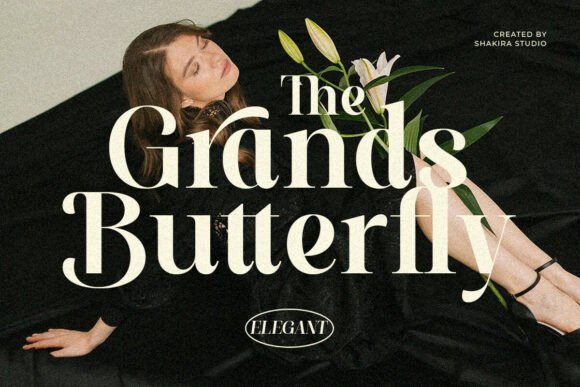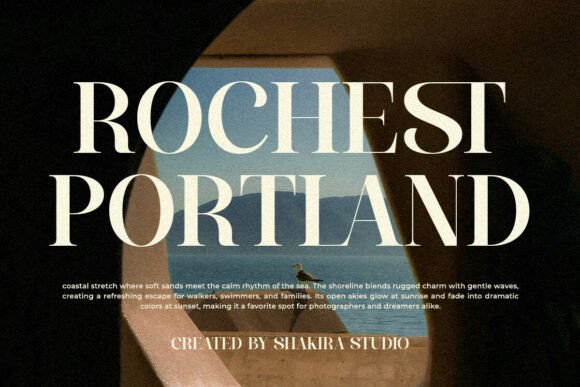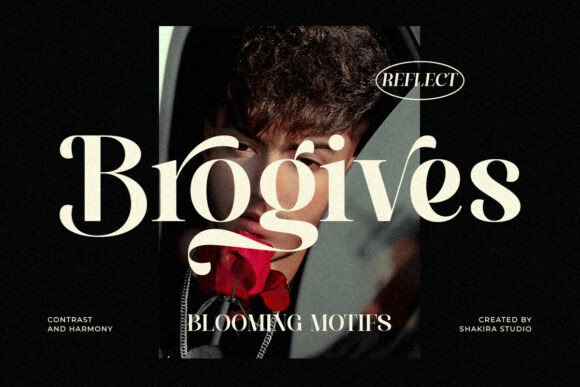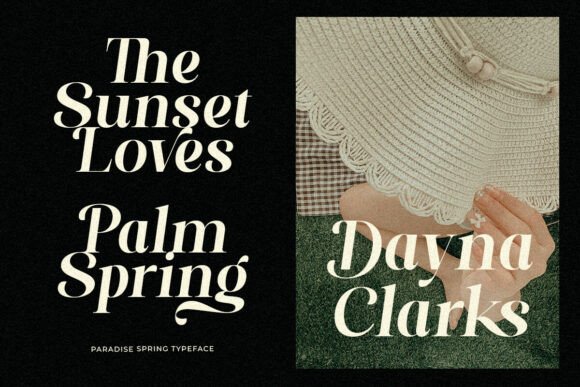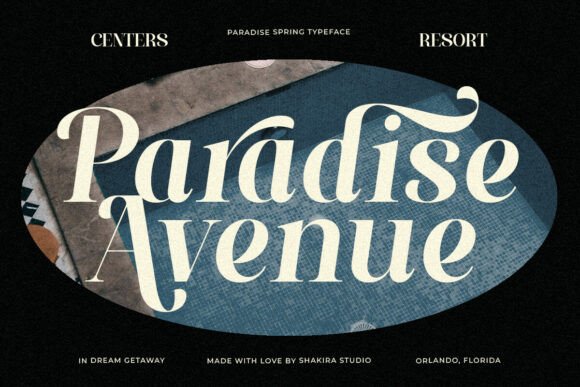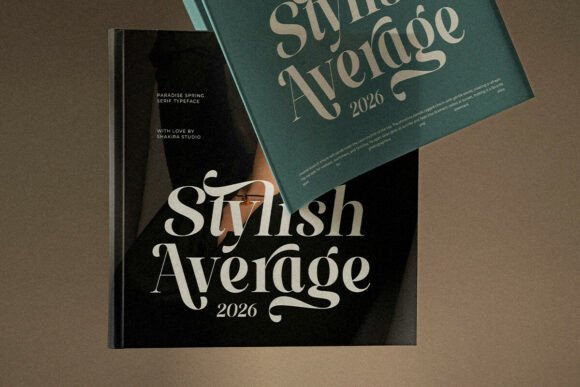
Introduction to Paradise Spring Font
Do you remember the feeling of discovering a hidden treasure on a tropical island? The excitement of stumbling upon a secluded cove, the sound of waves gently lapping at the shore, and the warmth of the sun on your skin? For designers, that feeling is often captured in the perfect font – one that transports your audience to a world of elegance and sophistication. That’s exactly what the Paradise Spring Font does, and we can’t wait to dive into its unique charm.
As a valuable design resource, the Paradise Spring Font offers a high-quality, free download that’s perfect for creative projects. Its stunning display serif design features bold, heavy forms and delicate, airy swashes that create a look that’s both grounded and whimsical. Whether you’re working on a travel branding project or designing a tropical-themed event invitation, this font is sure to bring a touch of luxury and whimsy to your work.
Key Features of Paradise Spring Font
- High-quality, elegant design suitable for various creative projects.
- Supports a wide range of languages, making it a great addition to any international design project.
Honest Review: Paradise Spring Font
I recently stumbled upon the Paradise Spring Font and I must say, it’s a lovely addition to any design resource collection. The font’s elegant, whimsical style makes it perfect for creative projects that require a touch of sophistication.
One of the things that stood out to me was the font’s high quality. The letterforms are well-designed, with a nice balance of bold and delicate lines. The font also comes with a transparent background, making it easy to use in a variety of design contexts.
Here are some of the things that work well about the Paradise Spring Font:
- ✨ Elegant, whimsical style that’s perfect for creative projects
- ✨ High quality letterforms with a nice balance of bold and delicate lines
- ⚠️ Limited character set, which may not be suitable for longer blocks of text
- ⚠️ May not be as versatile as some other fonts, depending on the specific design context
Overall, I’m quite impressed with the Paradise Spring Font. While it may not be perfect, it’s a great addition to any design resource collection and is sure to add a touch of elegance to any creative project.
Tips for Getting the Most Out of Paradise Spring Font
For optimal results, use the Paradise Spring Font in combination with a high-quality image or design element.
Experiment with different font sizes and colors to achieve a unique look.
The Paradise Spring Font is perfect for:
Birthday and holiday cards
Business logos and branding materials
Any creative project requiring a high-quality, elegant font